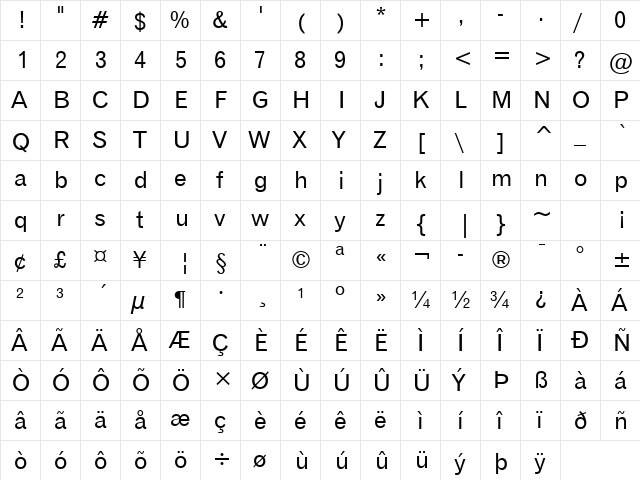
Gothic720 BT Roman
Design Context for Gothic720 BT Typeface
Gothic720 BT takes a clean, functional approach — its unadorned letterforms prioritise legibility and work reliably across screen and print environments.
Font Pairing: Works well alongside a characterful serif or display font that can carry the expressive load while Gothic720 BT handles the functional copy.
Pro Tip: Pair Gothic720 BT with a display or serif font for headlines — its neutral character makes it an excellent supporting player in complex typographic systems.